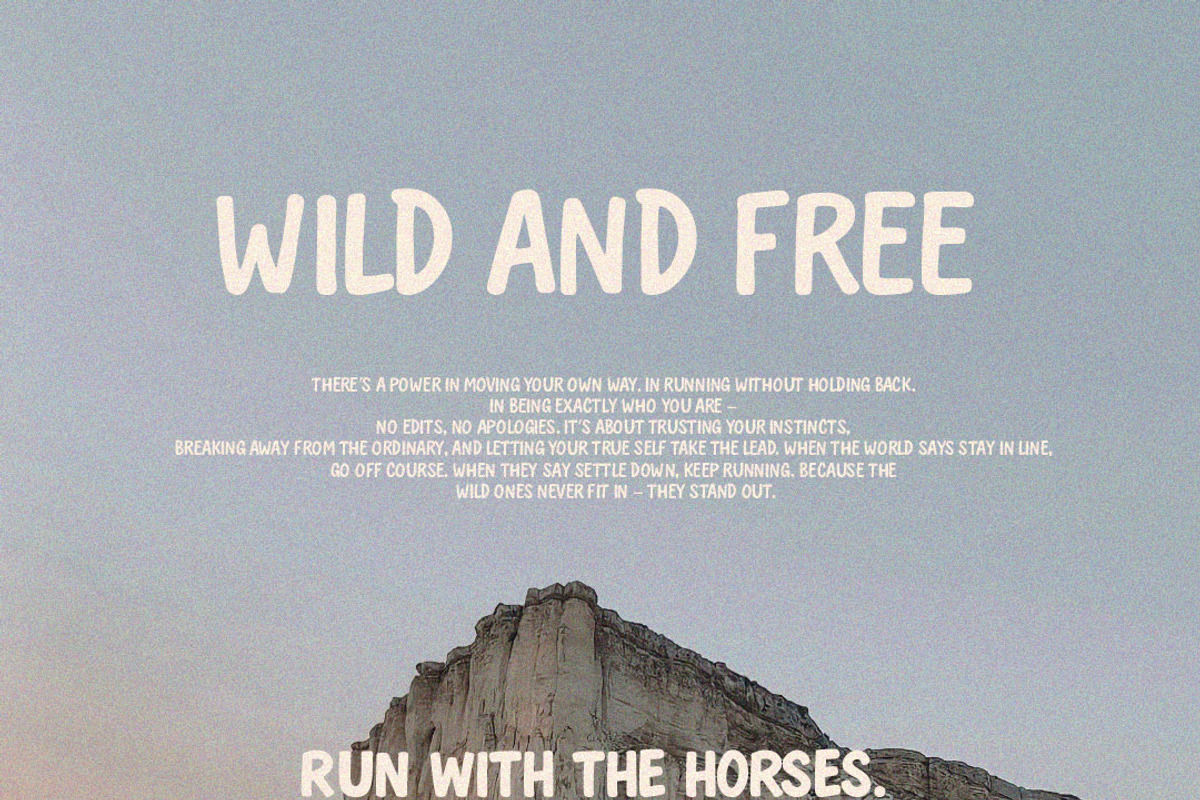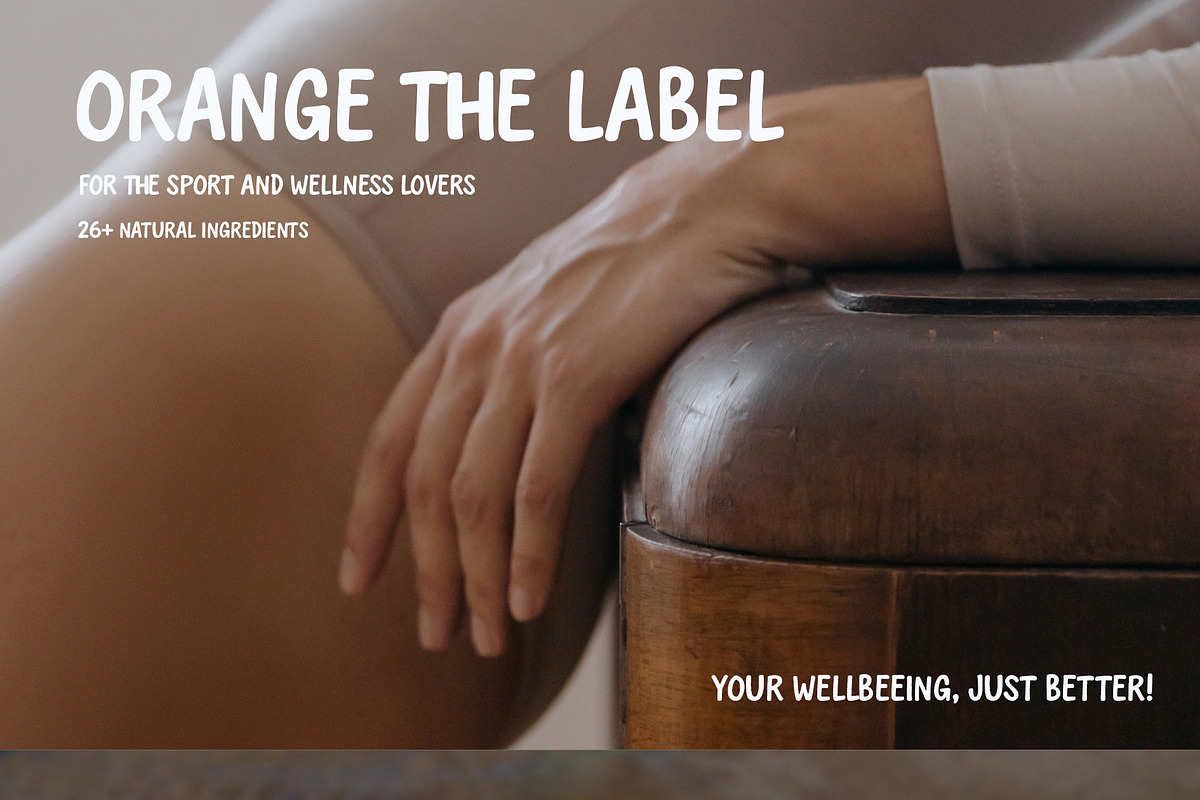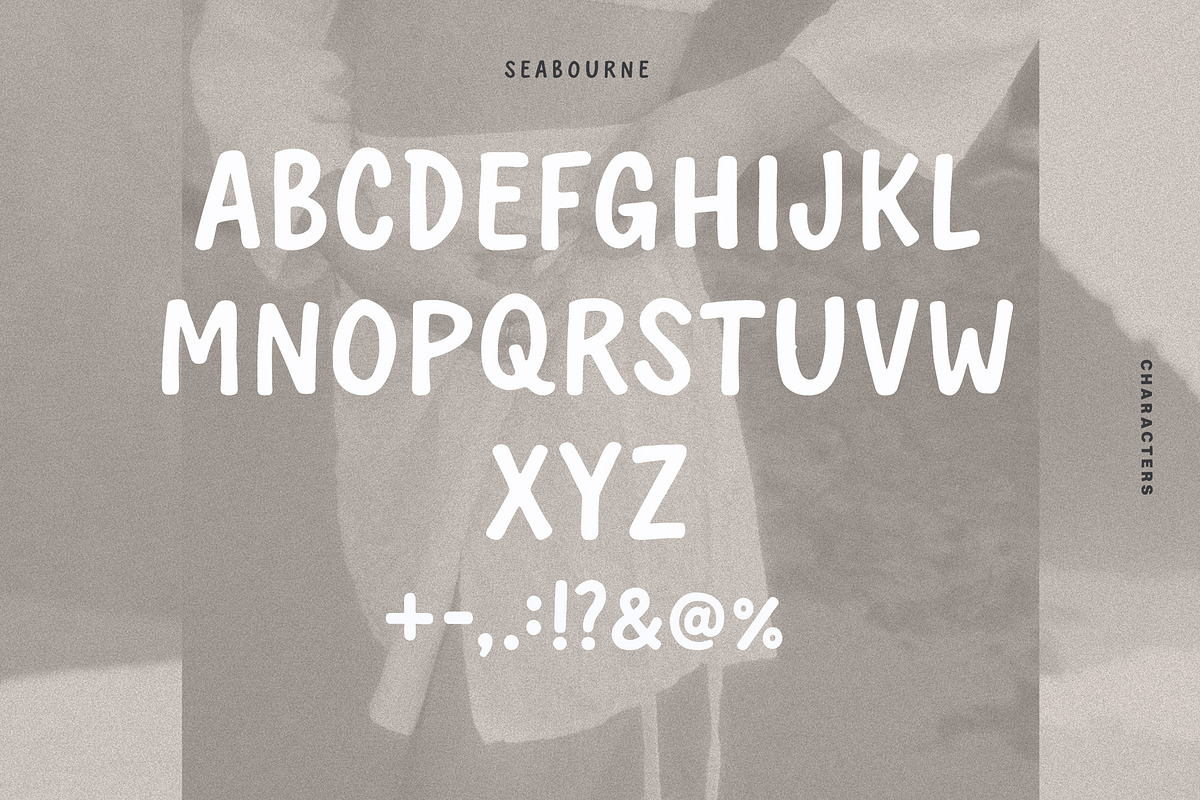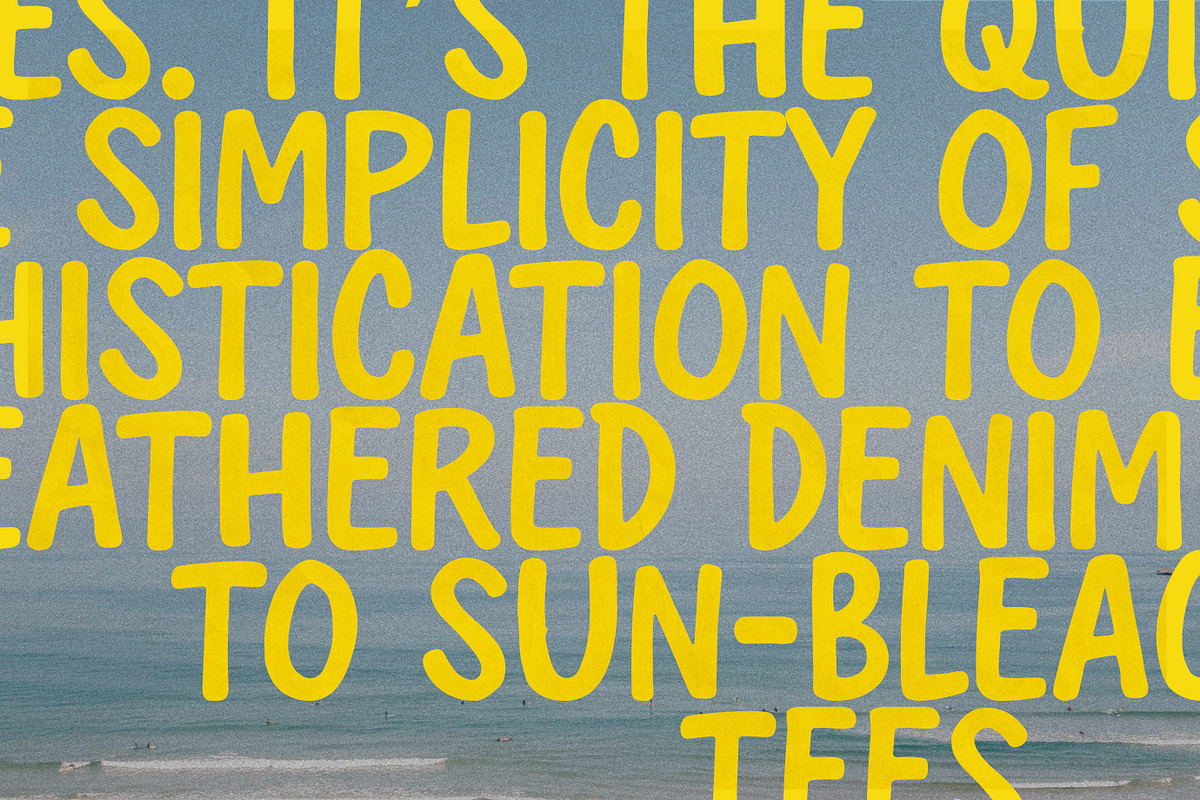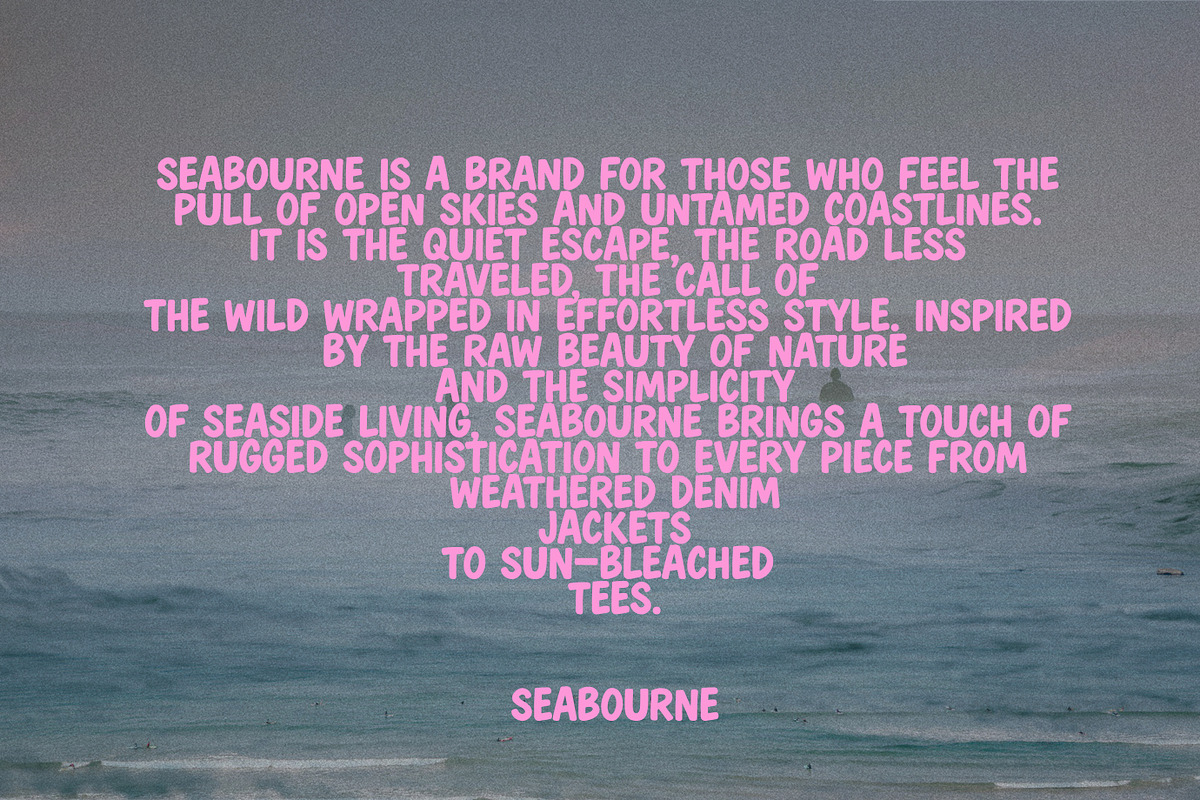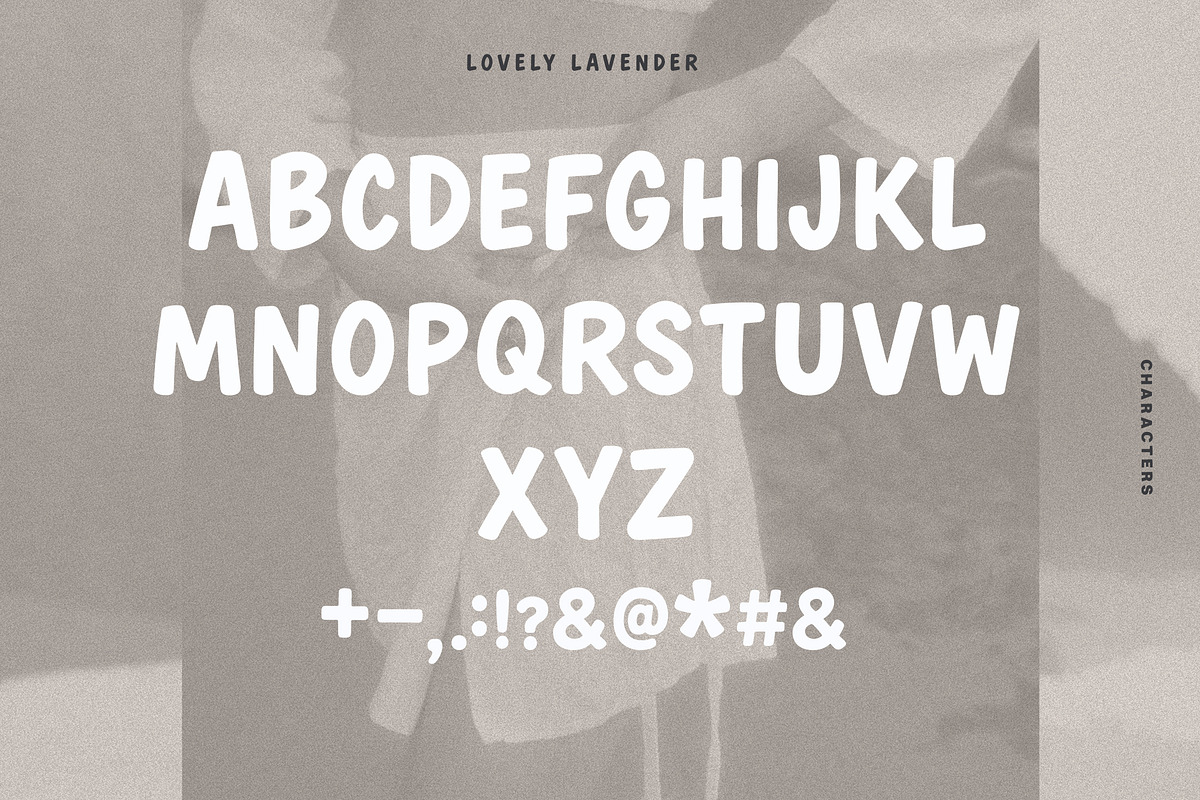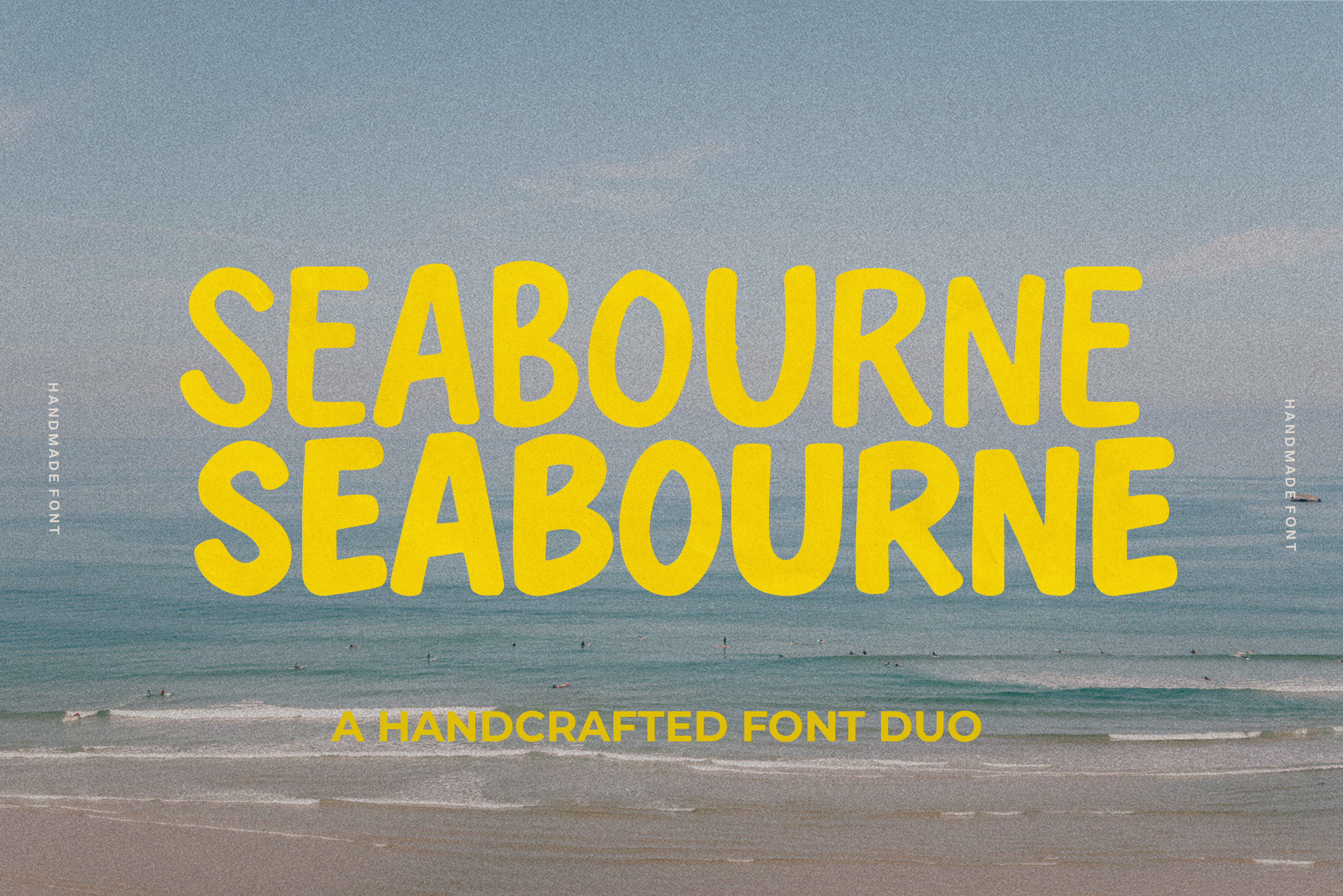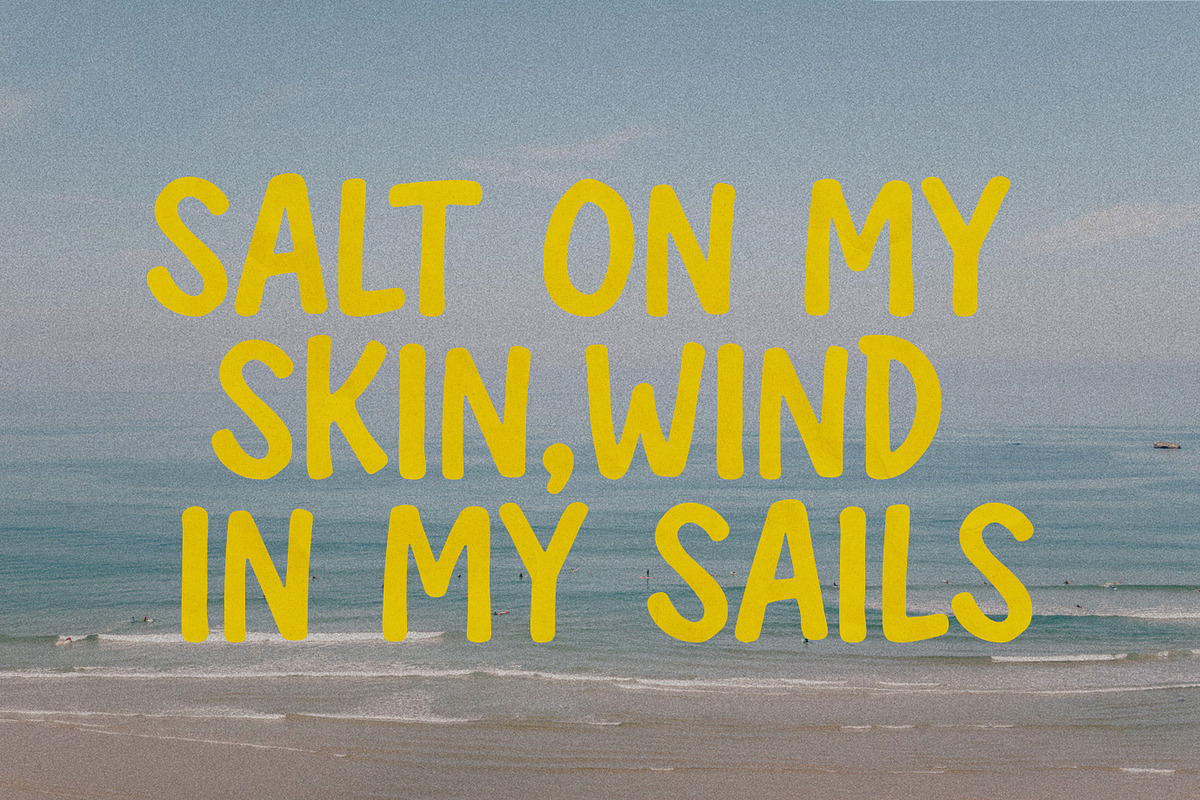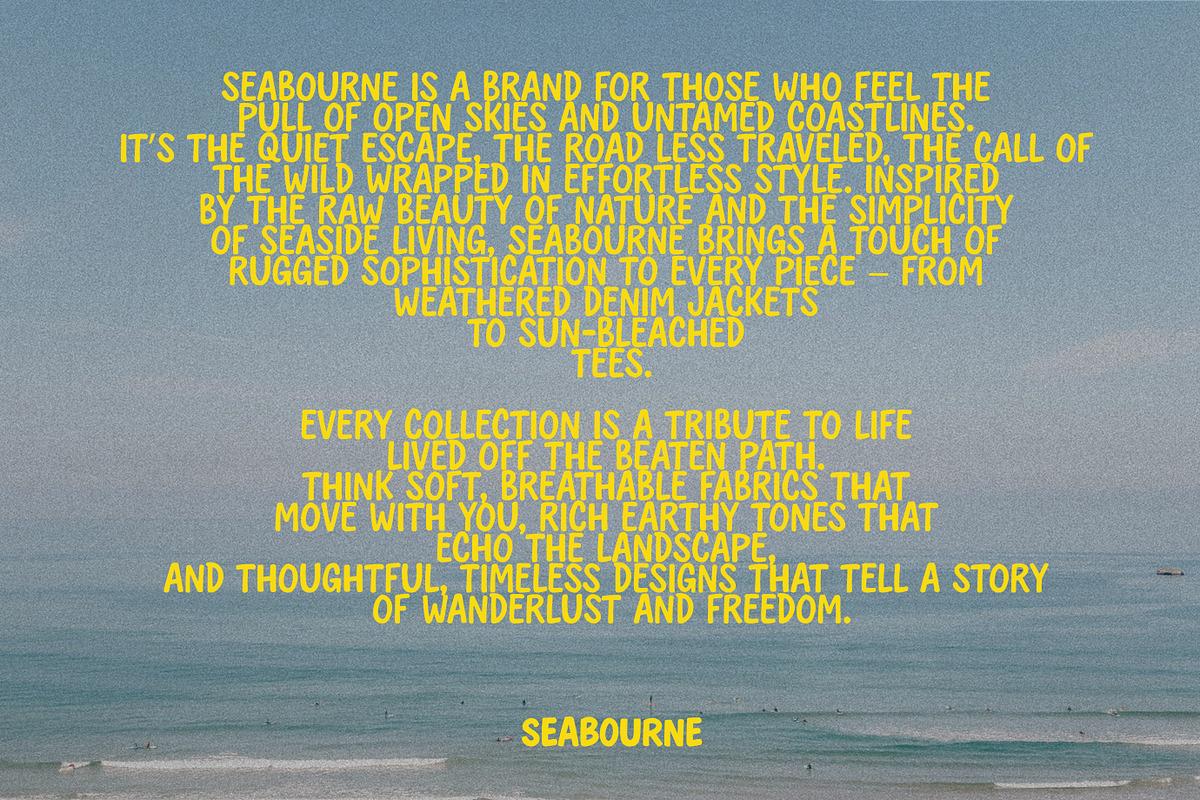
Seabourne Handmade Marker Font Duo
Seabourne is a striking marker font duo and a perfect match of a sleek and a bold marker font. Designed to grab attention and convey bold, unapologetic energy, this handmade duo adds an on-trend finish to your work. With its hand-drawn strokes and dynamic feel, it’s perfect for posters, headlines, branding, and designs that need to stand out.